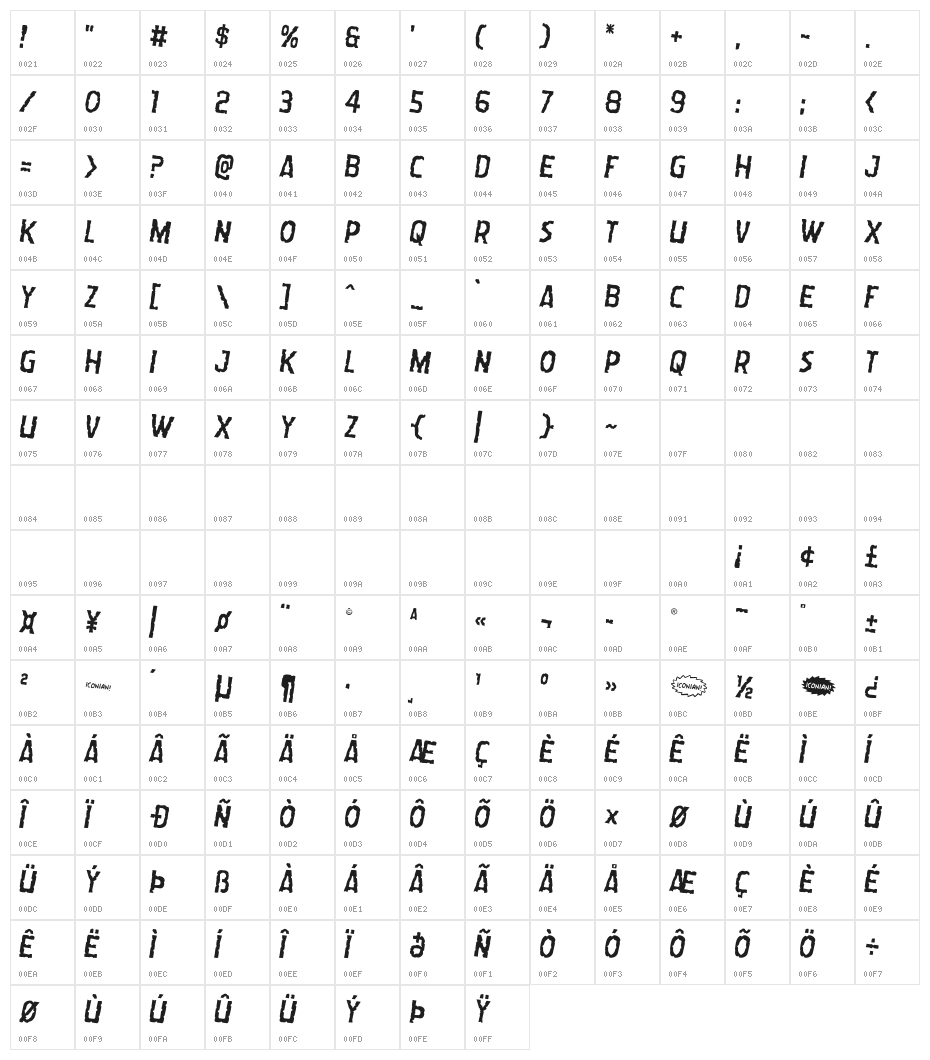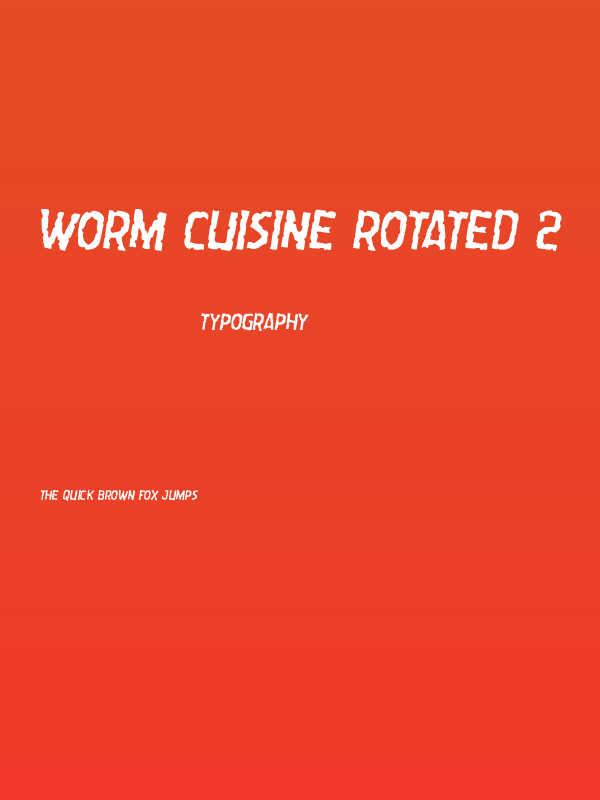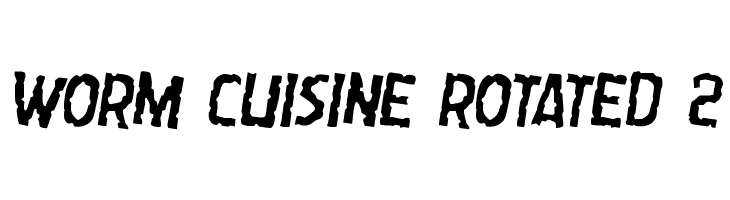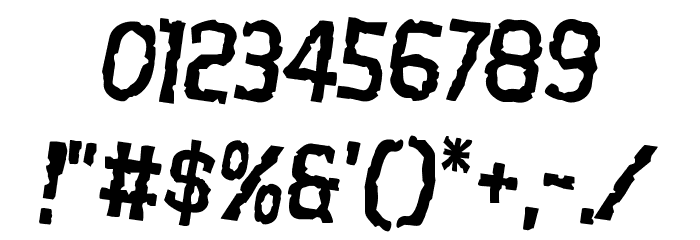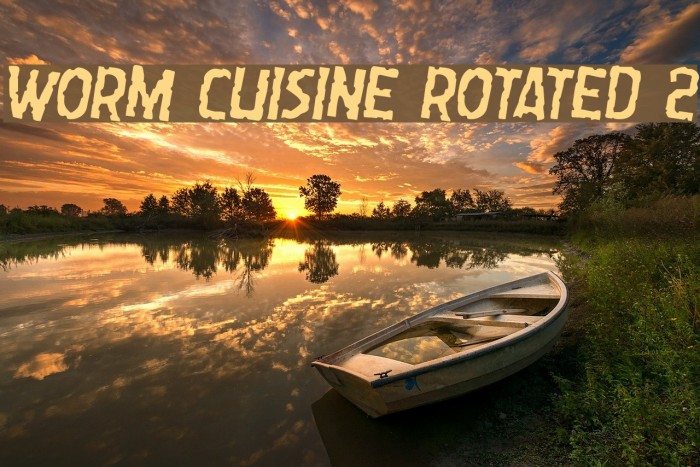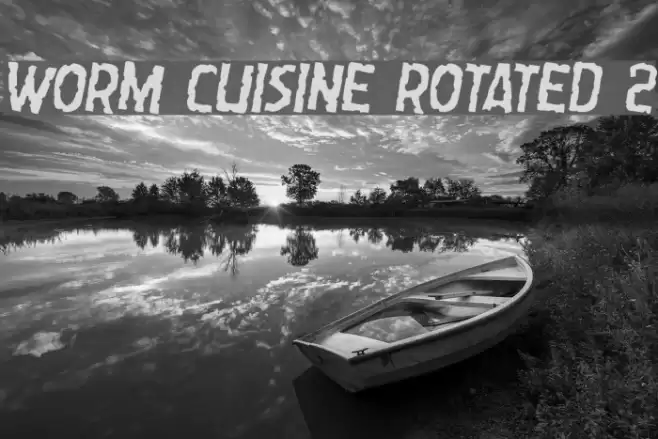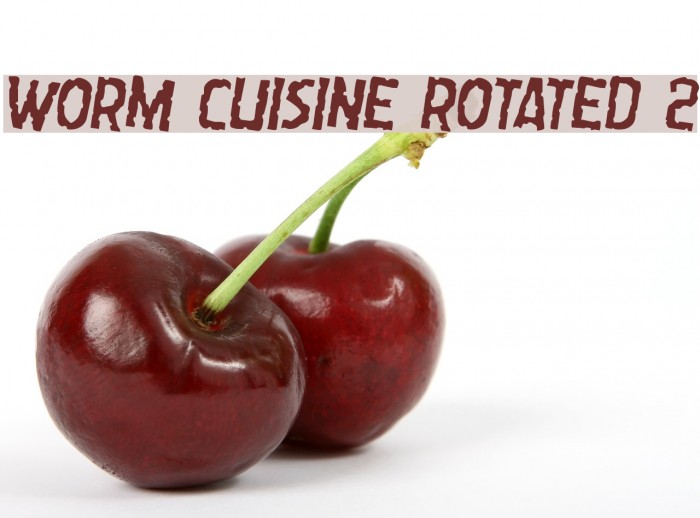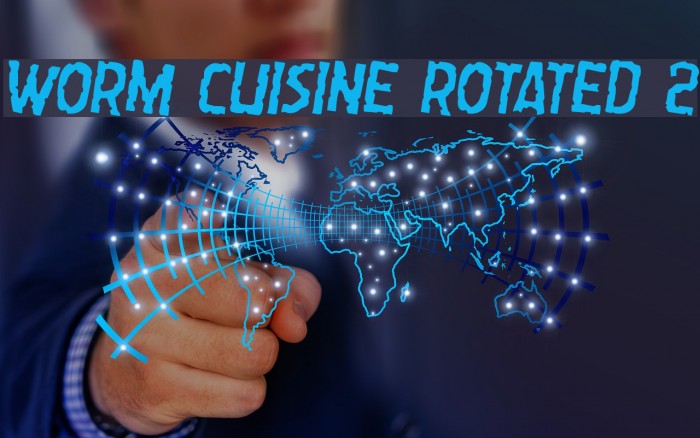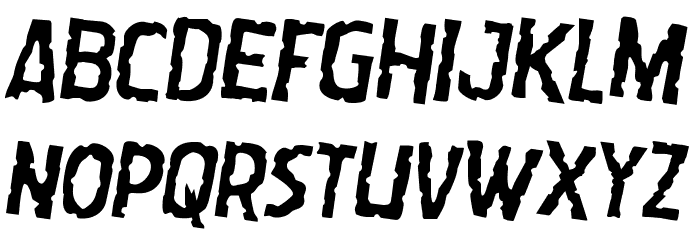
Worm Cuisine Rotated 2 Font
Worm Cuisine Rotated 2 Description
This font features a bold and rugged style with irregular, jagged edges that give it a distressed, hand-crafted appearance. The characters are slightly tilted, adding a dynamic and energetic feel. The uppercase and lowercase letters maintain a consistent weight, contributing to its bold presence. Numbers and special characters follow the same stylistic approach, ensuring uniformity across all glyphs. The font's unique texture and boldness make it stand out, ideal for projects that require a strong visual impact.
| Proposed Projects | Ideal for posters, album covers, branding for edgy or alternative products, and any design needing a bold, impactful statement. |